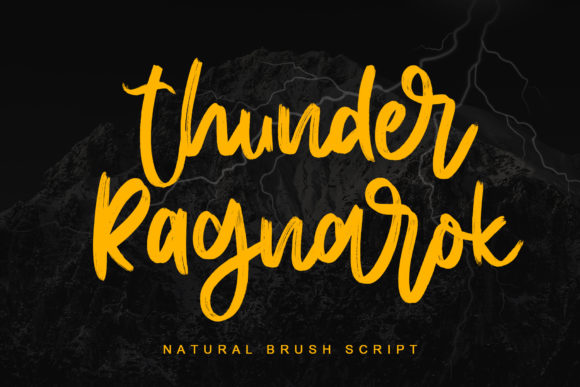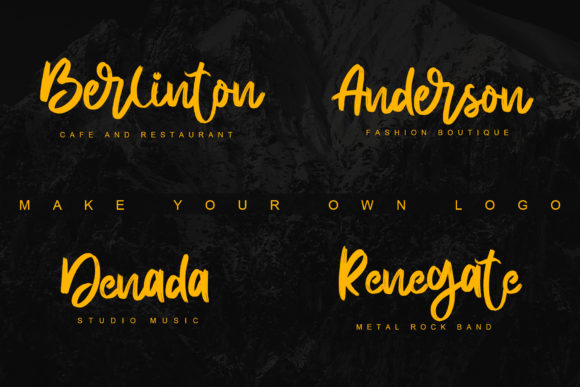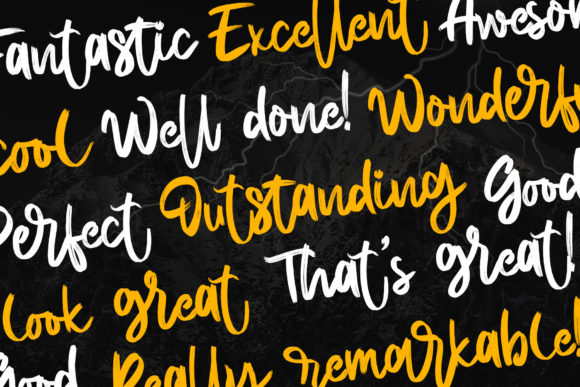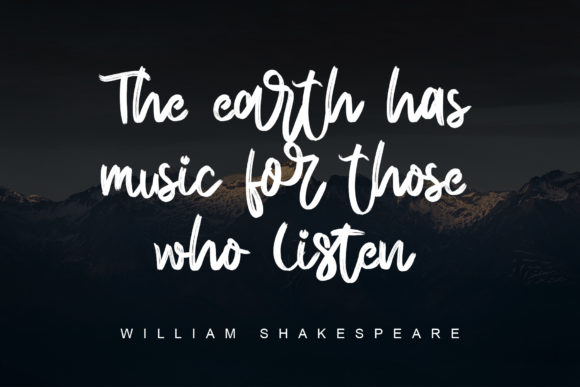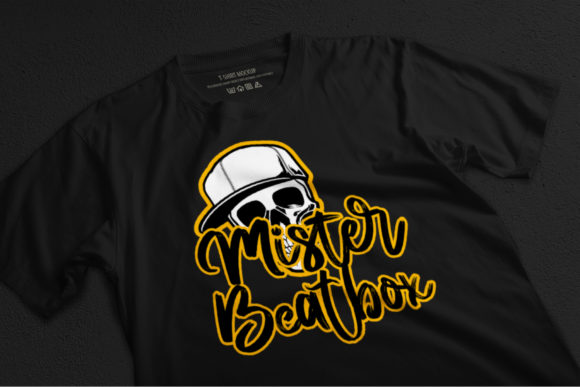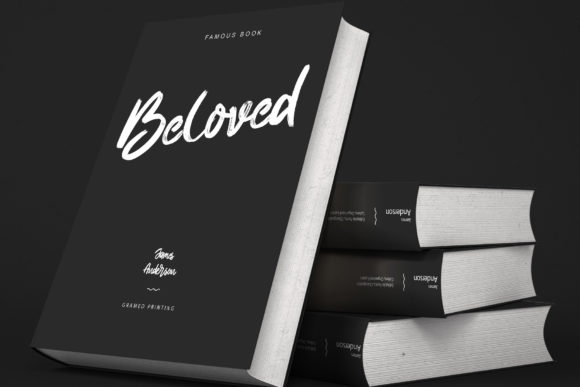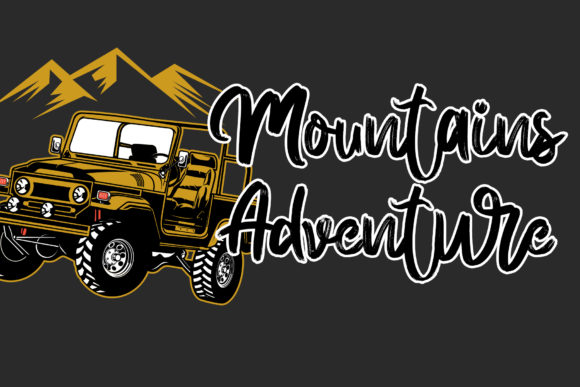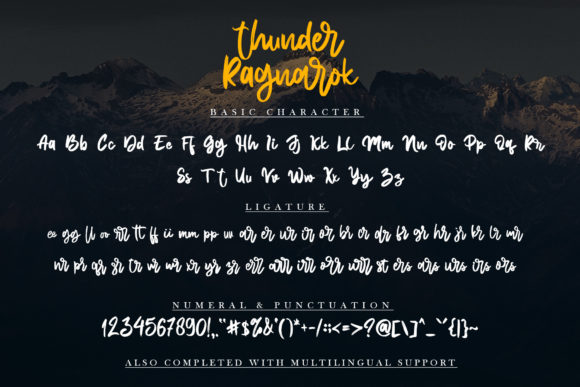
Thunder Ragnarok Font
About Thunder Ragnarok Font
Thunder Ragnarok is a stylish and modern script font. It has an unique, striking look which can be used to make any design stand out. Bobby Anderson is PUA encoded which means you can access all of the glyphs and swashes with ease!